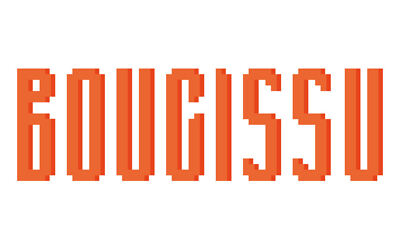
Feb 6, 2025Display3D Isometric Font 3D Isometric is an isometric display typeface with 3 styles. It is perfect for bold statements in identity design, web design, games, posters and other artworks. Font DetailsDesigned by: GGBotWebsiteLicense: Free for commercial use, OFL Download 3D Isometric FontFile size: 233.84 KBCreated: February 16, 2025Updated: February 16, 2025 Download Explore similar fonts Ortech Font Netech Font Fun Fantasy Font Hibiny Font Family Endure Font Elviro Font # Block# Bold# Cyrillic# Geometric More fonts by GGBotRuthless Sketch FontFriendly Sans FontElatox FontHelp Me FontX Typewriter FontAudex FontE1234 FontUnitblock Font